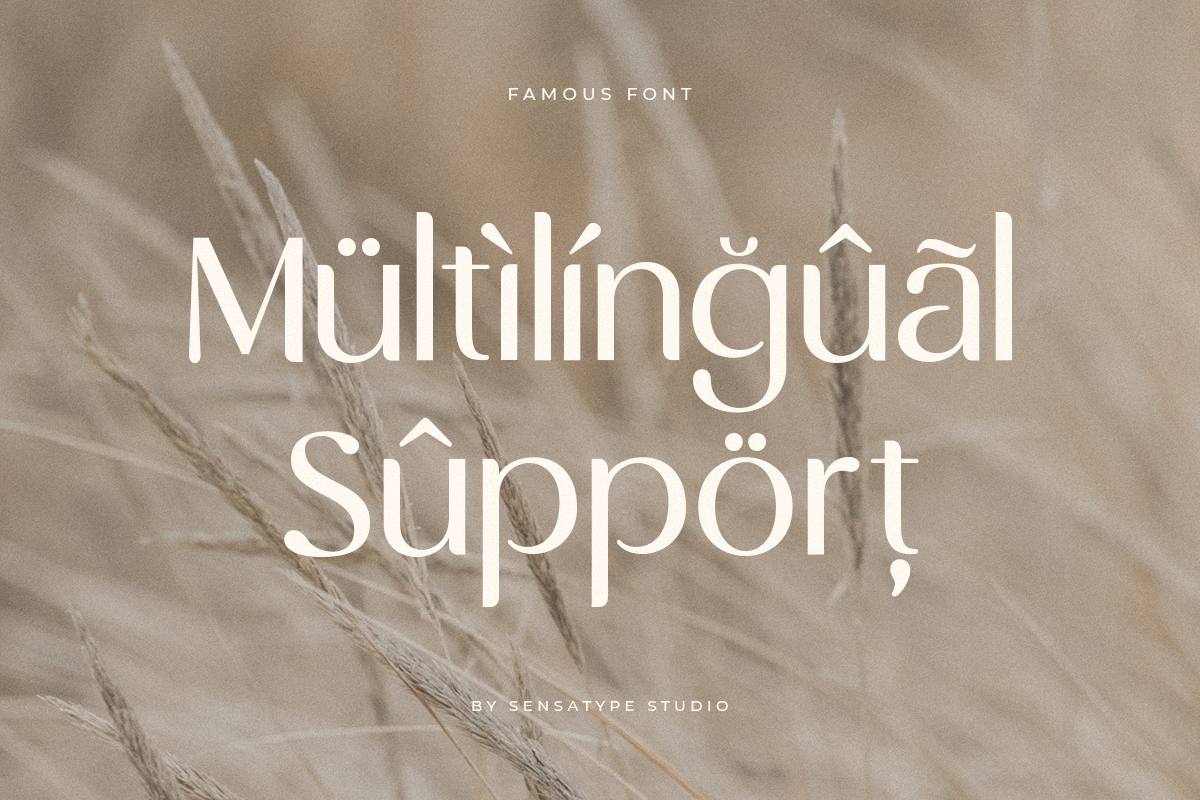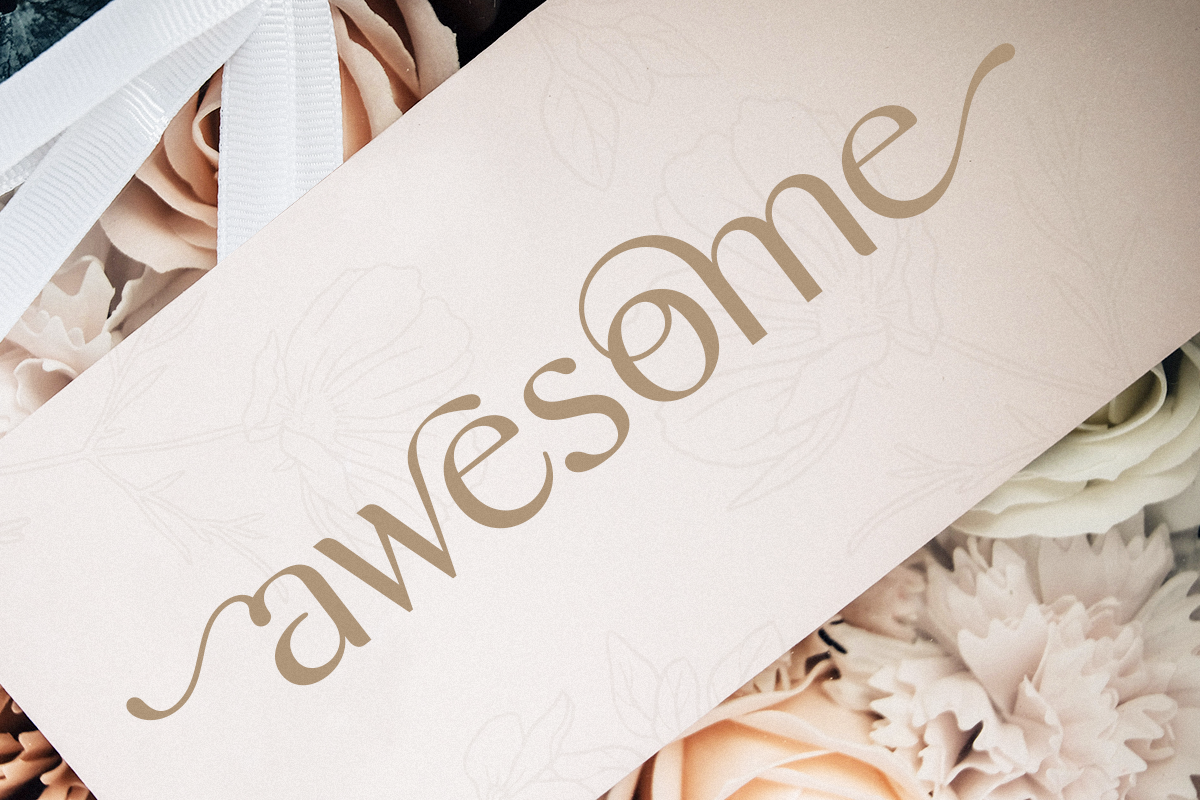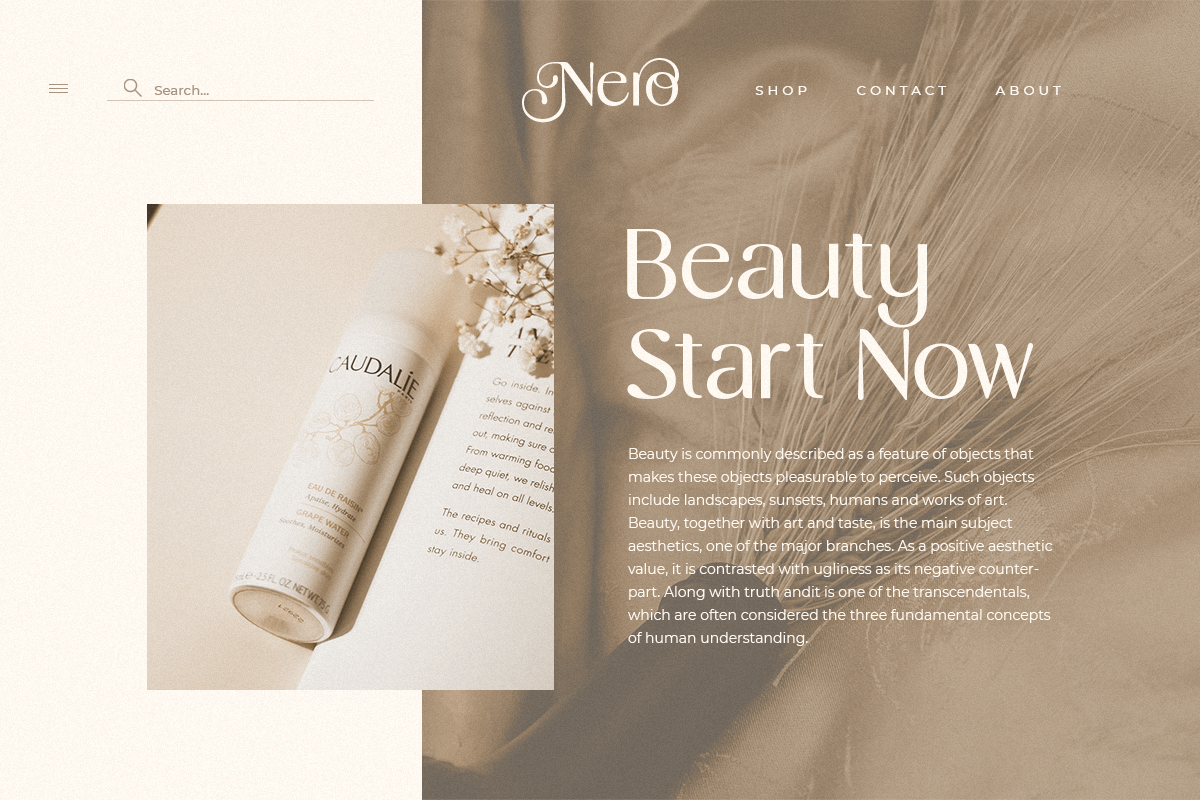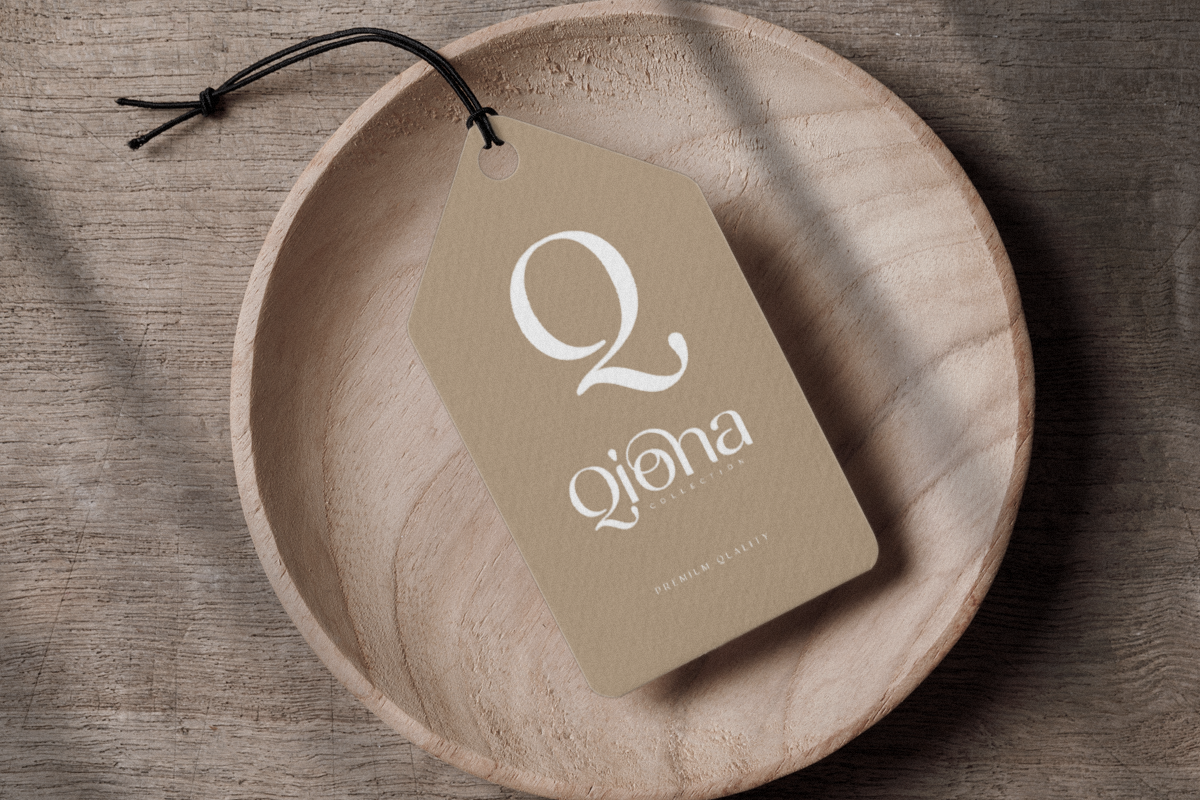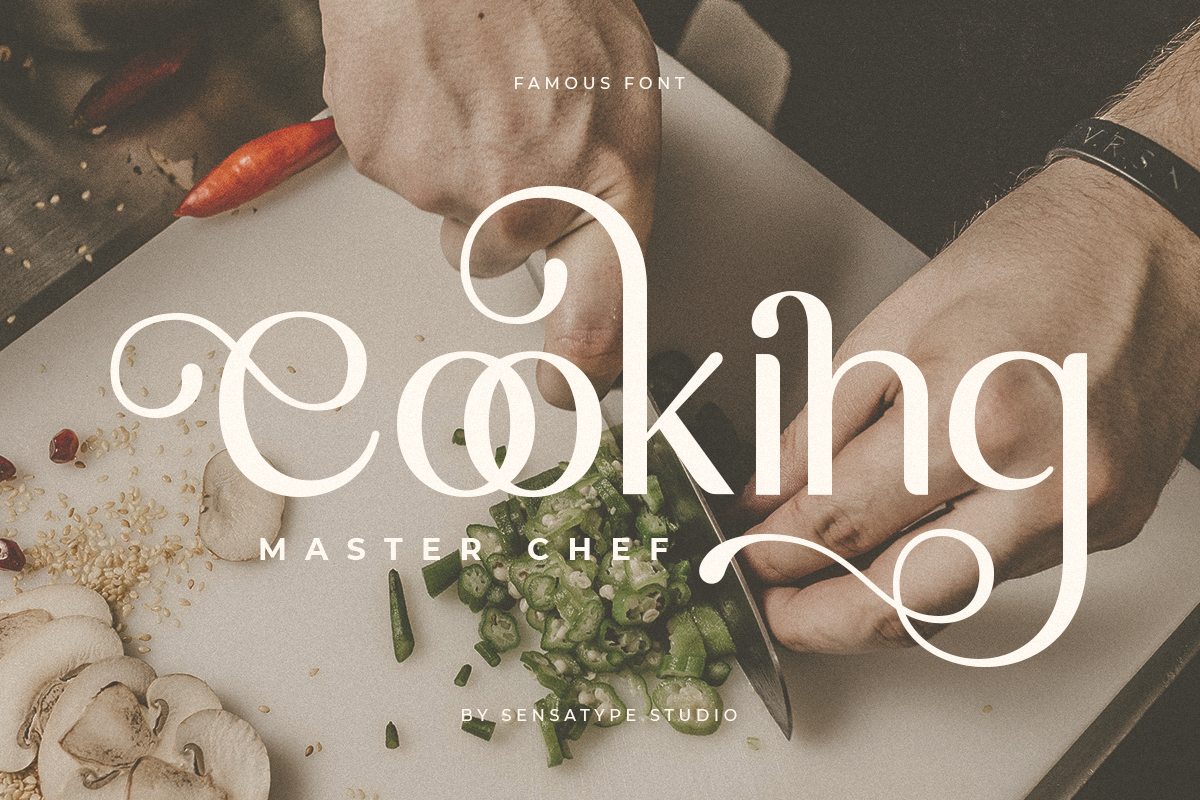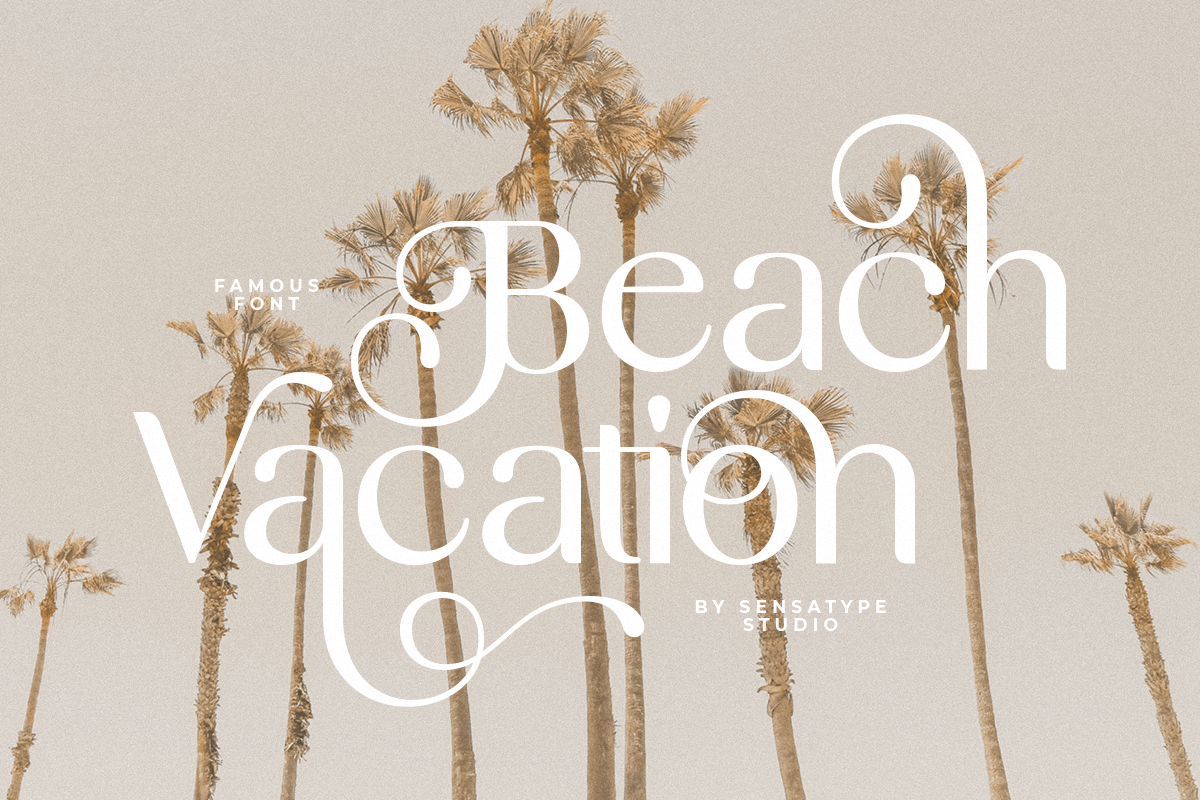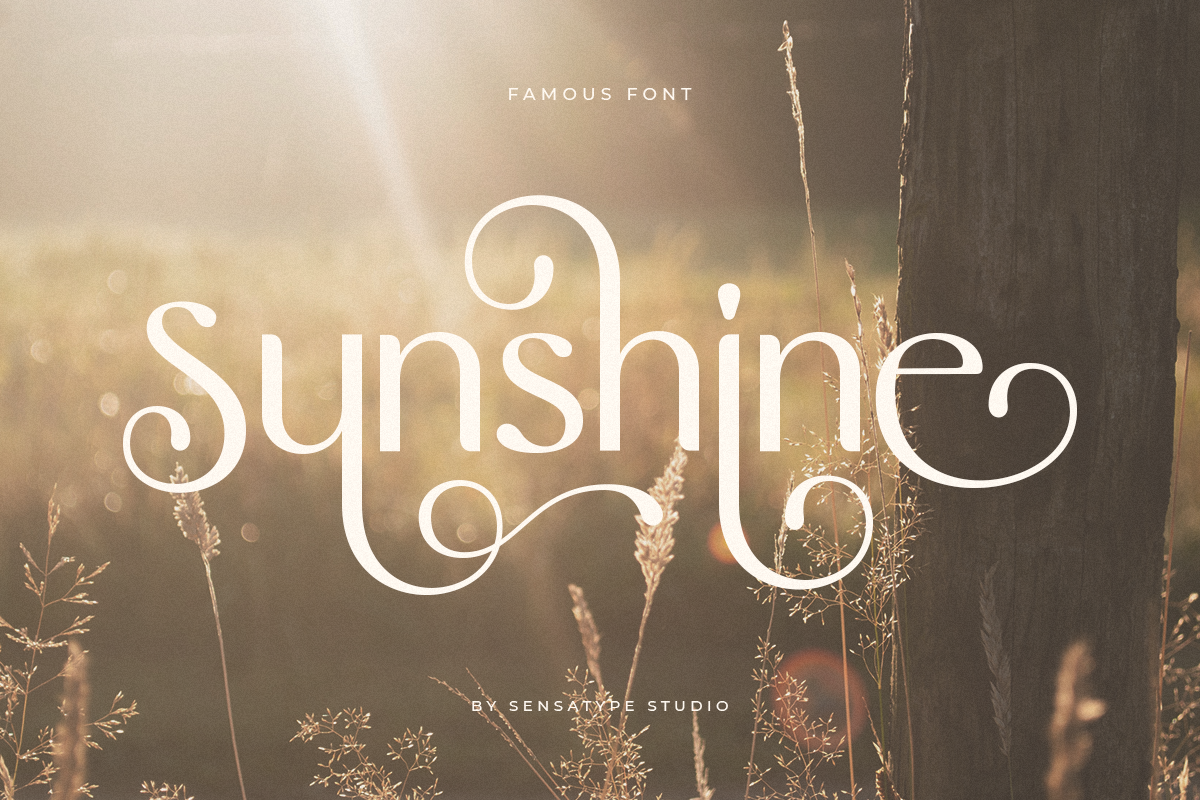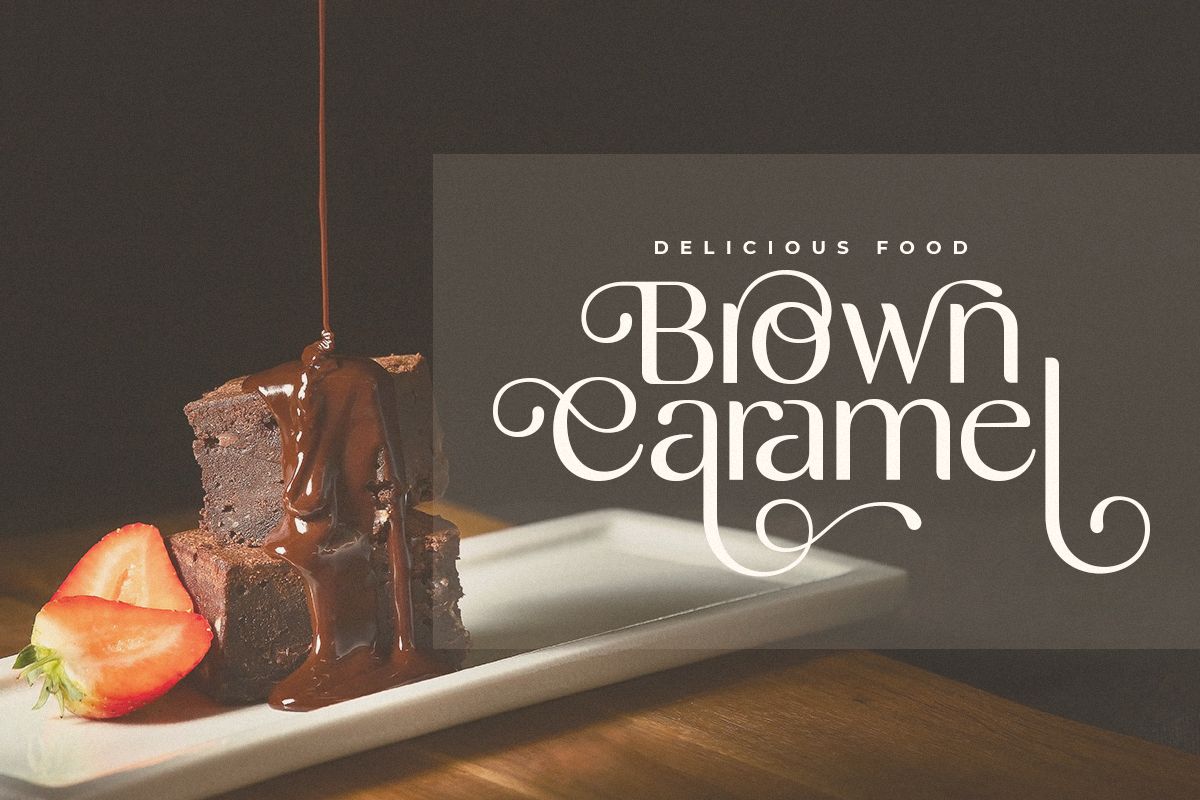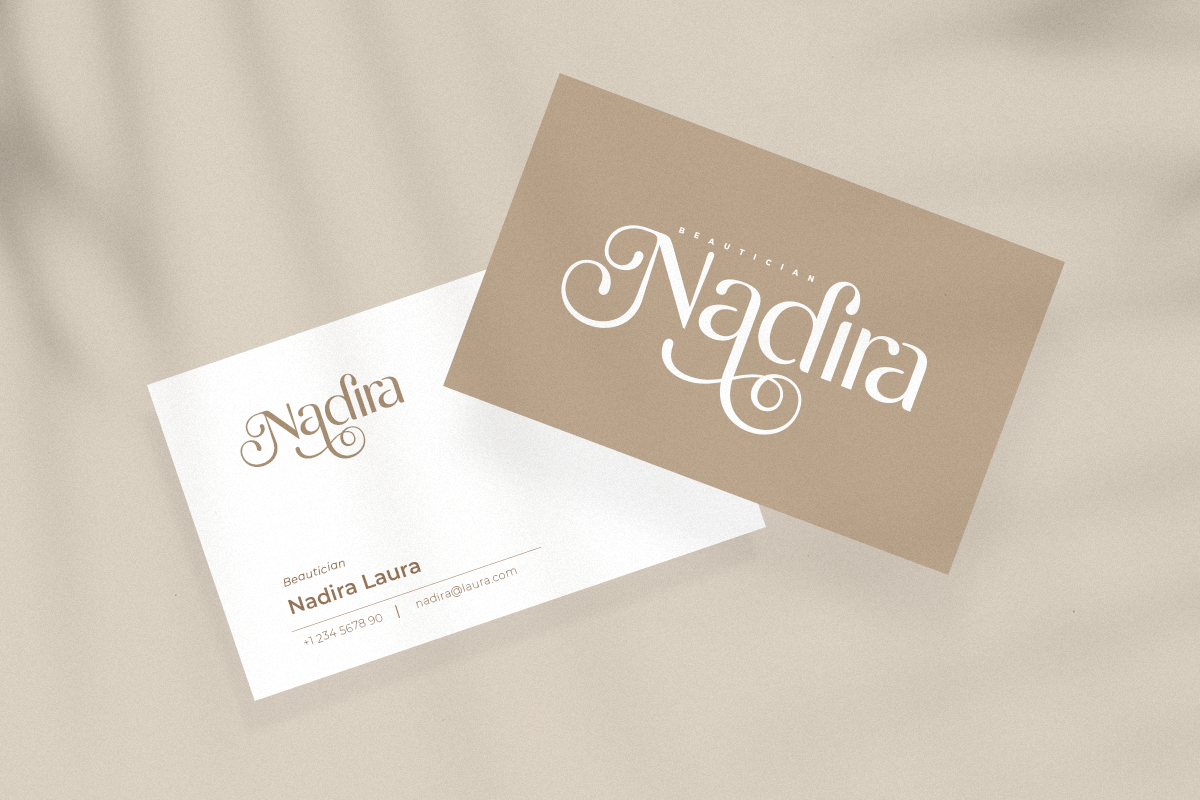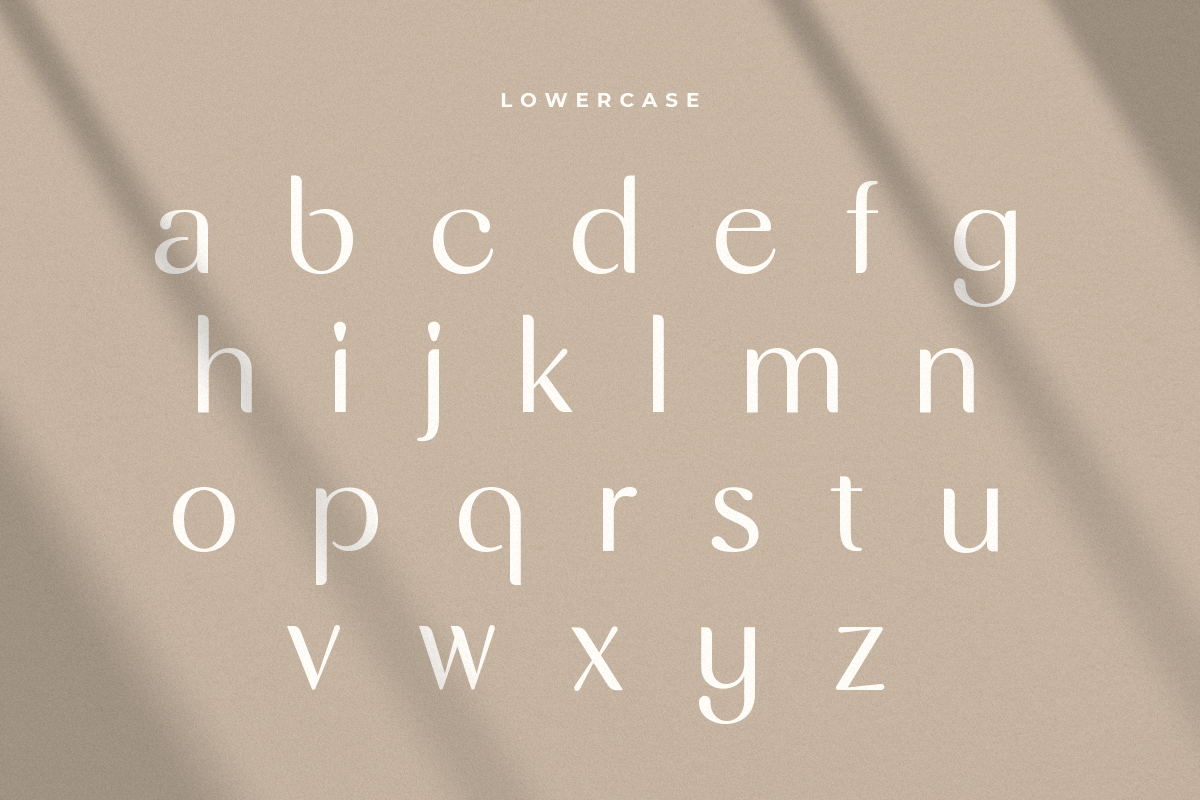
Famous - Modern Feminine Beauty Font
Famous is a Modern Feminine Beauty Font
A new Sans serif that we created special for branding needs, with extra ligature in unique shape add value of your brand. It so nice to leverage designer or product owner that need solutions to make their design look more stylish and modern. And specially for Feminine font, We prepared any ligatures, and any alternate characters to help you create unlimited variations for your creative needs.
Feminine sans serif font ready with:
Any options to get creative variations (combination of Alternate and Ligatures)
Preview as a inspirations that you can do with Feminine font
Ready with Lowercase and Uppercase characters